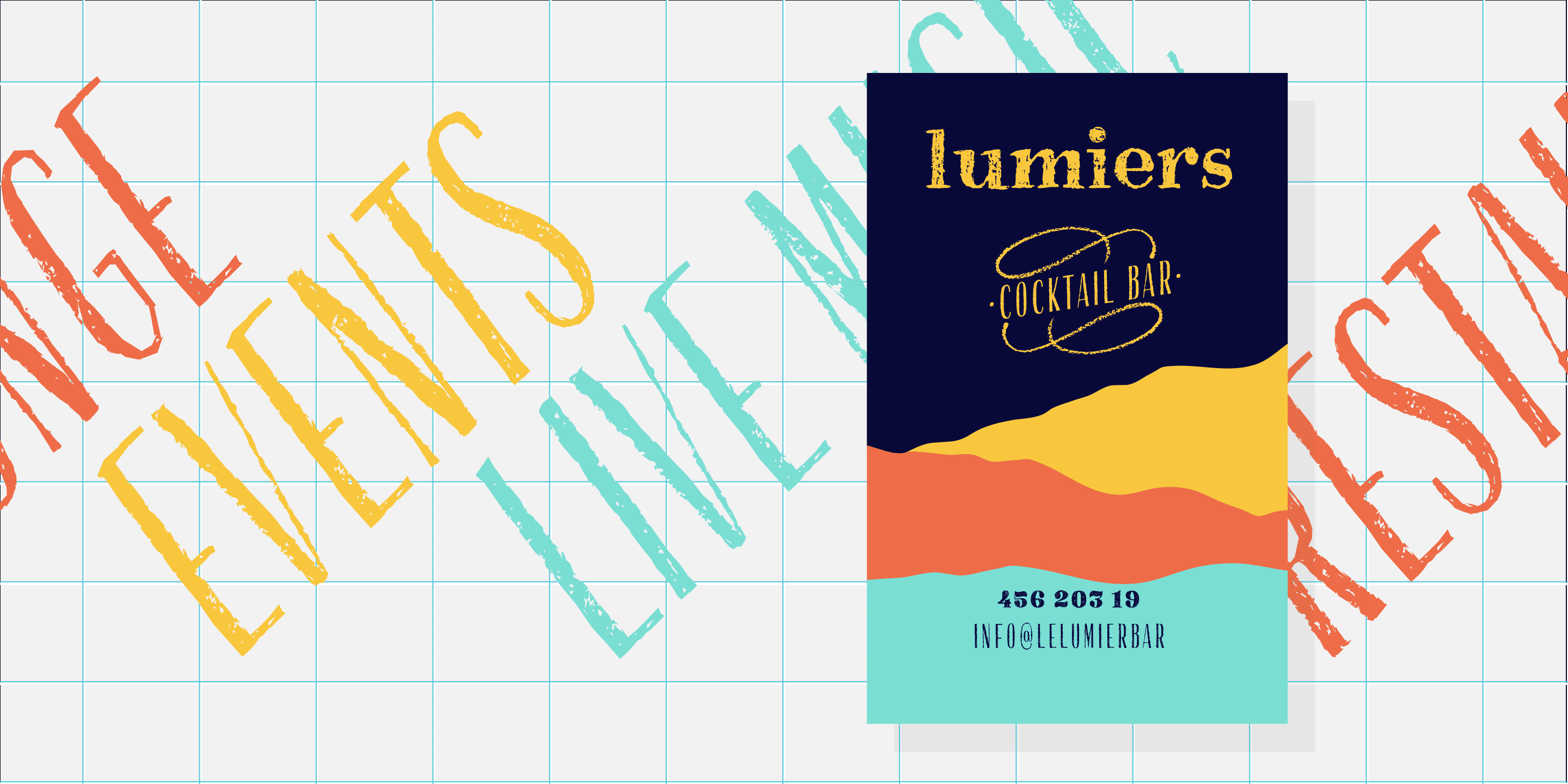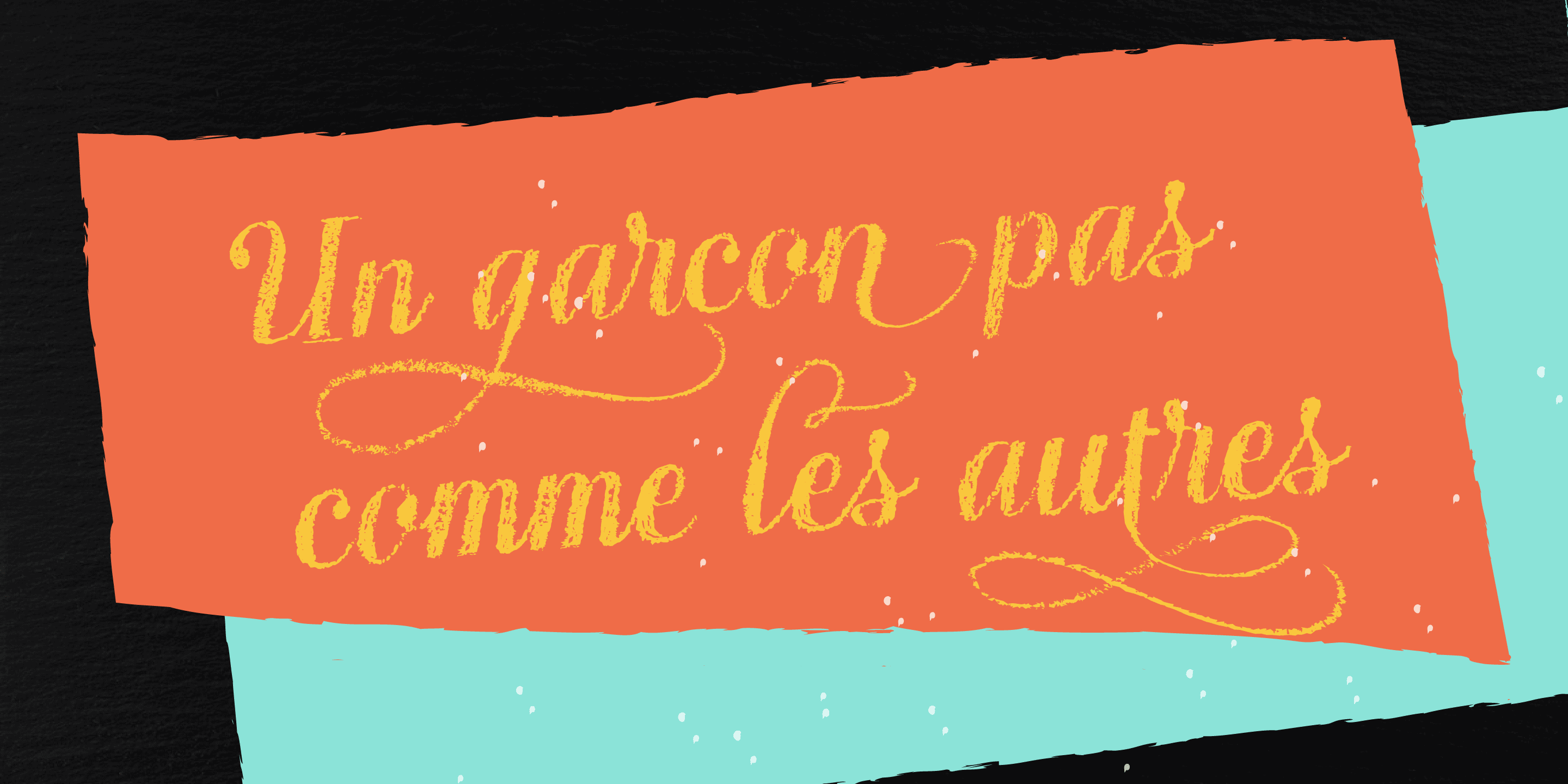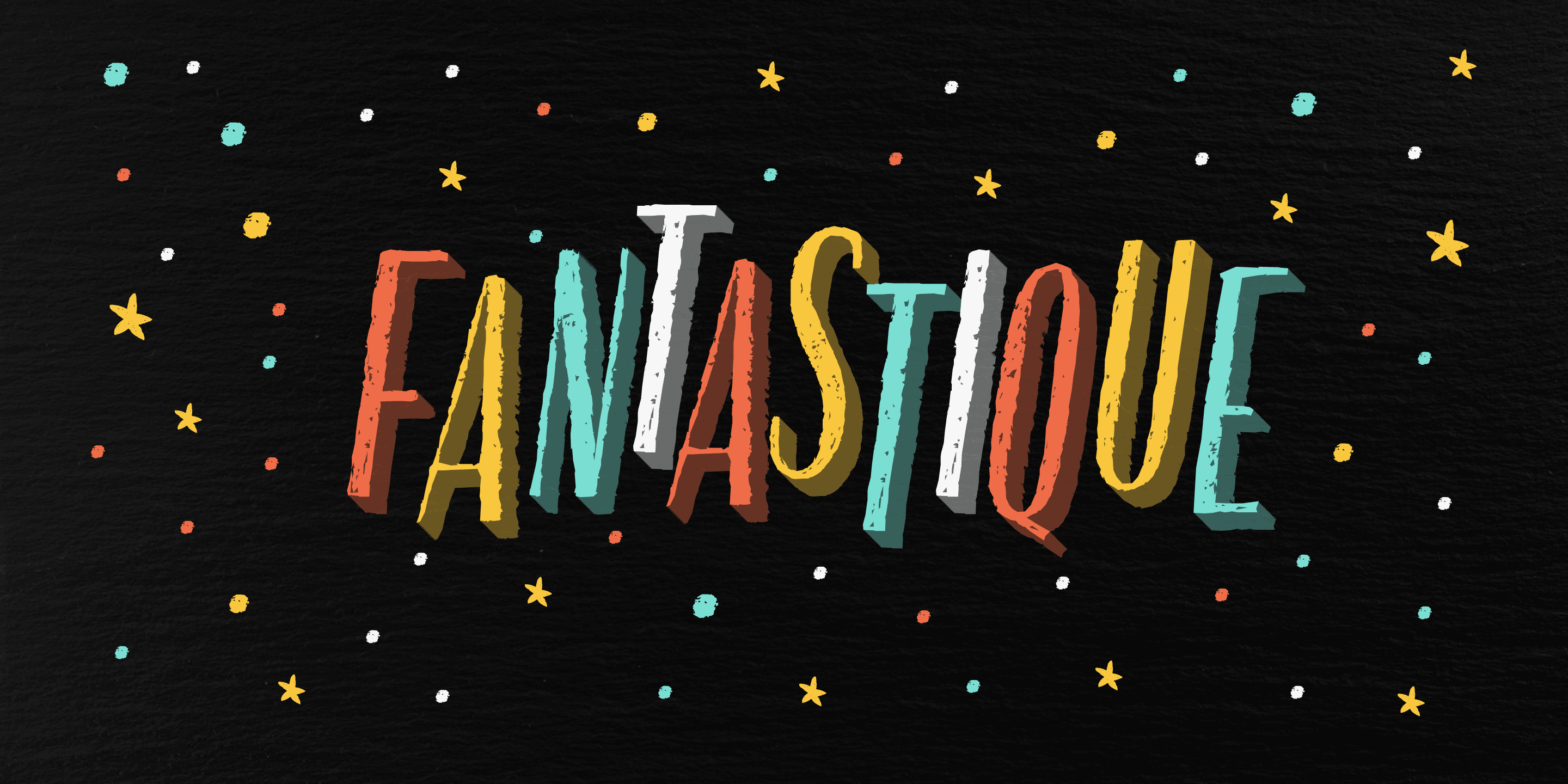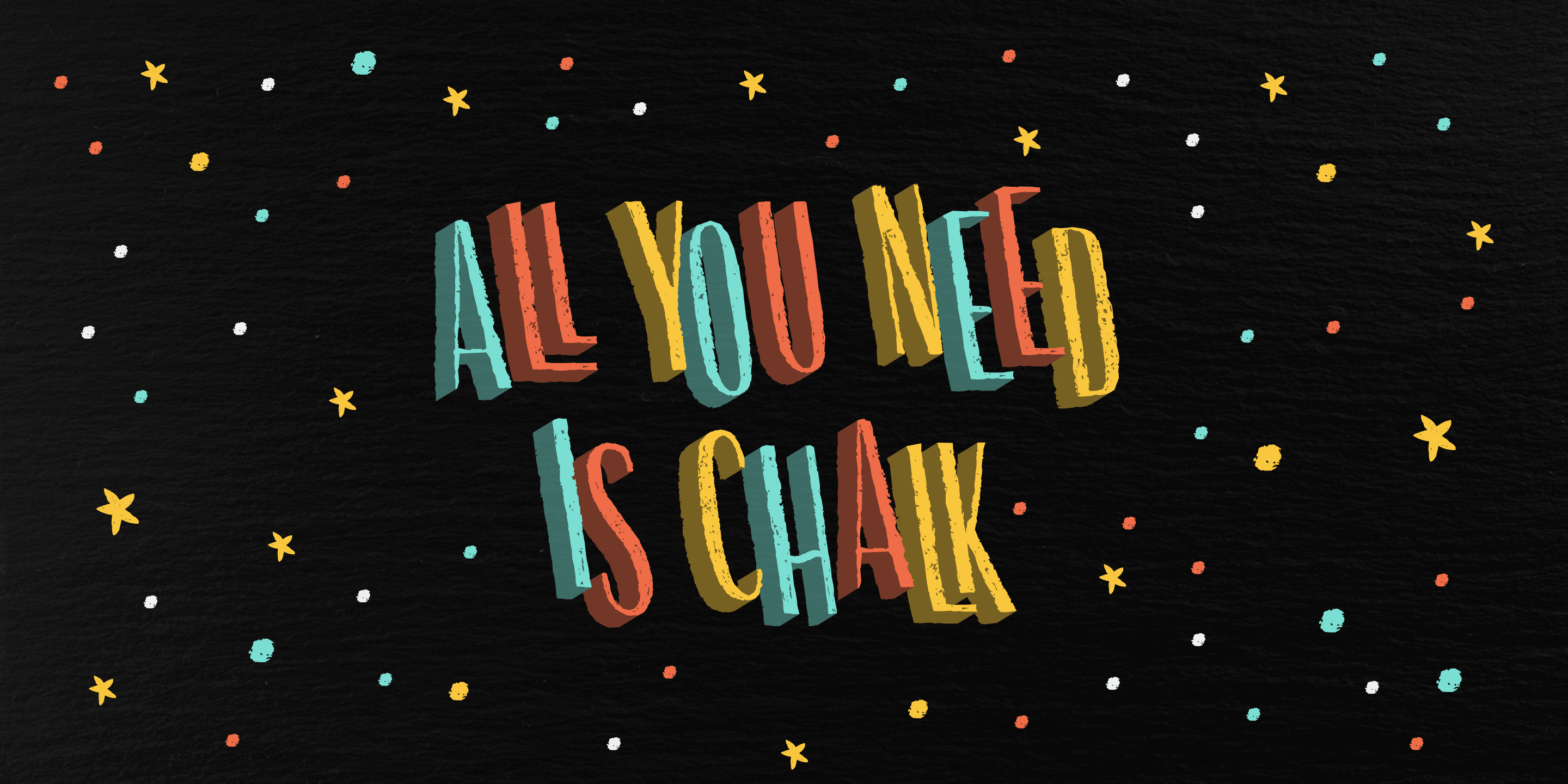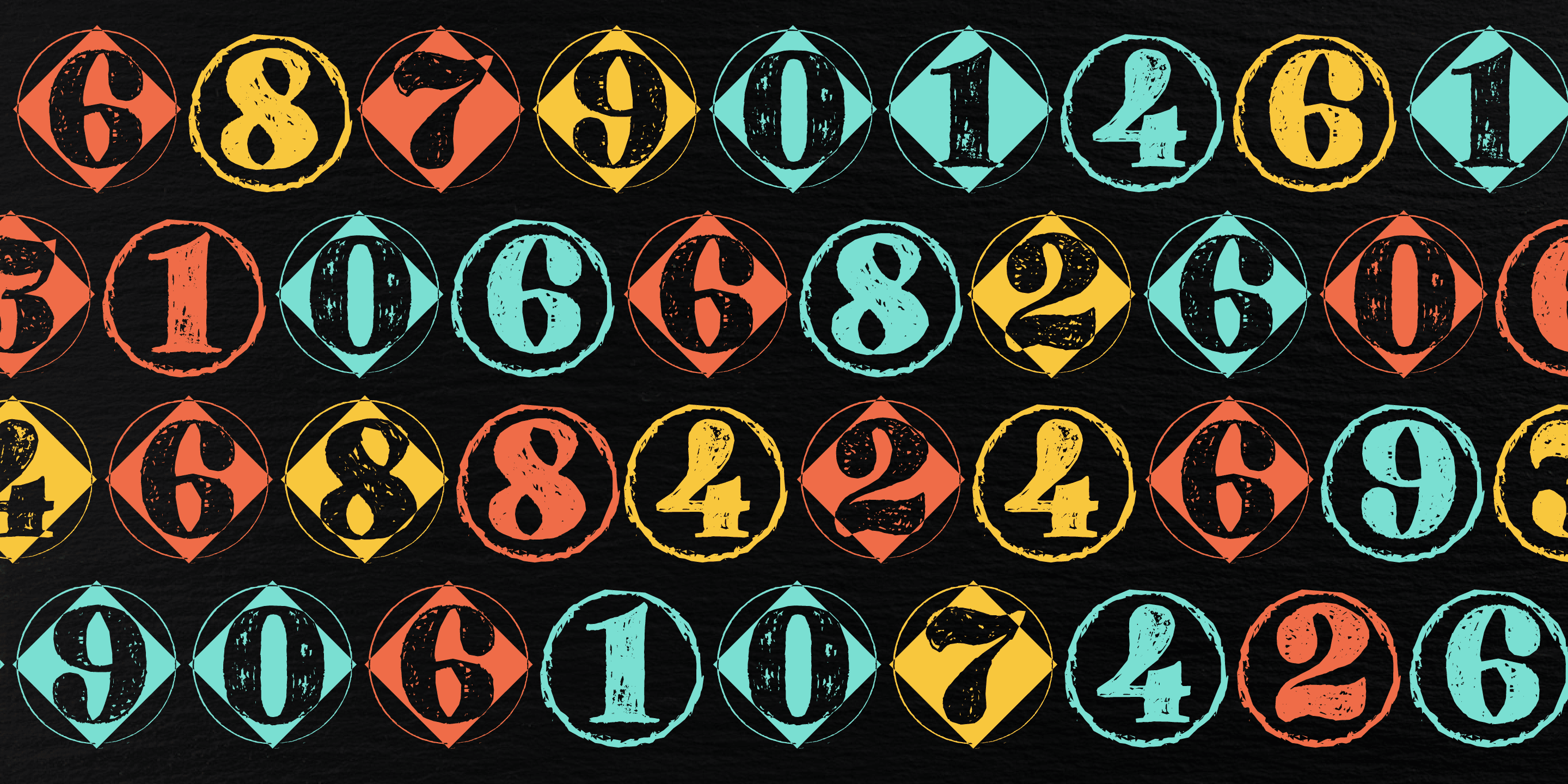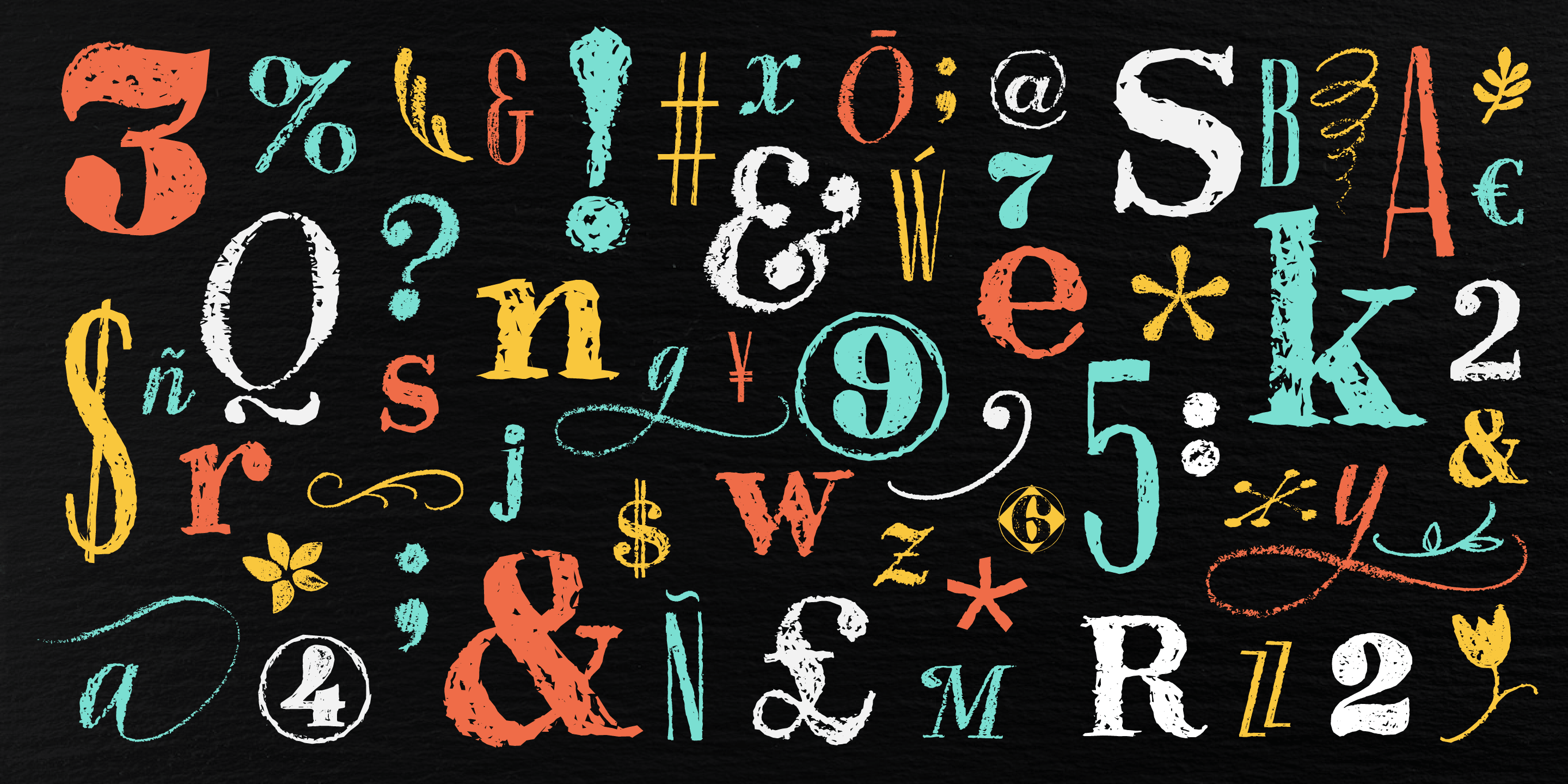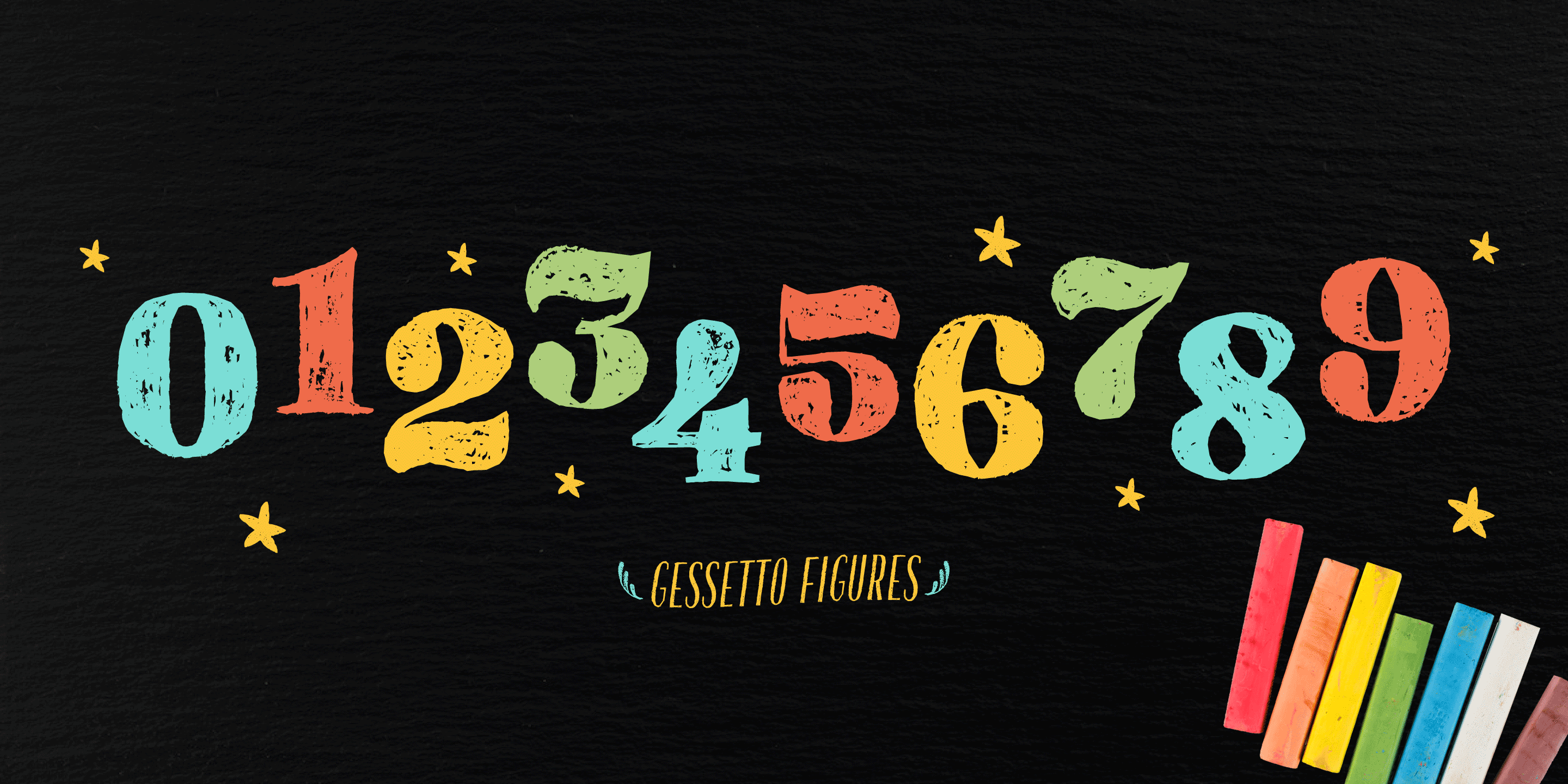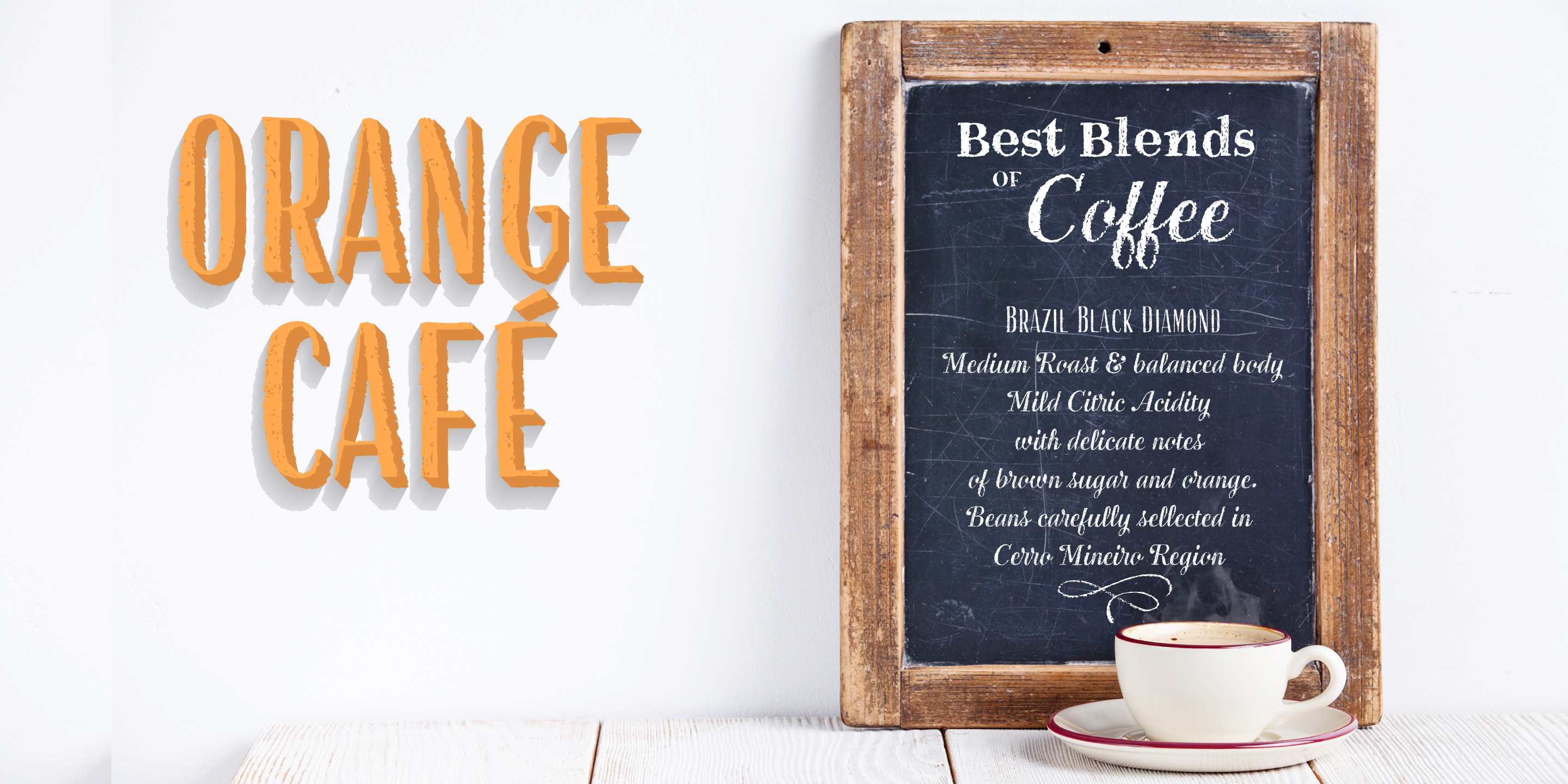
Gessetto
Chalk Font Family
Gessetto
Gessetto is an extensive chalk font family, containing script, sans, roman, figures and ornaments.
One of the things most charming about chalkboard lettering is the variation; in both texture and style. Our goal was to achieve a real chalk effect using the varied typographic genres in a digital format.
With flexibility and control for the designer in mind, we built a digital chalk toolkit. The script is a fusion of Italic Roman and cursive, it contains swashy alternates for each capital letters with some long and extended flair on some ascendent and descendent letters. An all caps high contrast sans is in 5 complimentary styles. The Roman is precisely proportioned and maintains elegance while being bold. There is also a set of Figures and ornaments.
Gessetto is perfect to grab attention on signage, print advertising and editorial applications like book covers, but suits branding applications too.
The diverse styles and subtle handcrafted textures in this display type family will well serve any designer looking for the authentic chalkboard aesthetic.